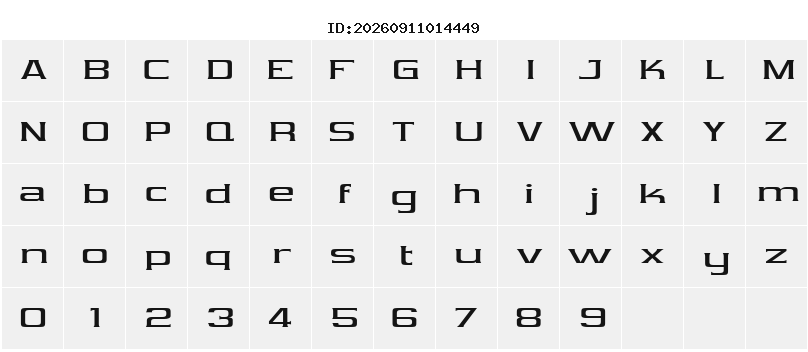
Vibrocentric Preview
About Vibrocentric.ttf
Vibrocentric.ttf is a modern, elegant sans-serif font designed for ultimate readability and visual harmony. Perfect for branding, headlines, web design, and print materials.